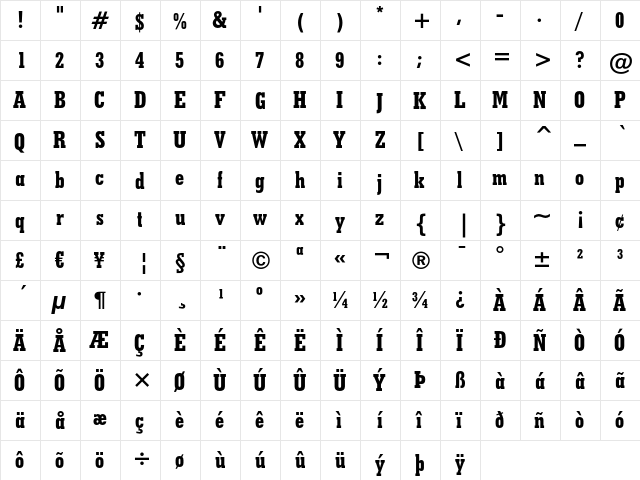
Geometric Slabserif 703 Extra Bold Condensed Font Preview
Design Context for Geometric Slabserif 703 Typeface
Geometric Slabserif 703 features prominent, blocky serifs that give it a confident, grounded presence — equally at home in editorial settings and bold branding work. Its bold stroke weight gives it real presence on the page. Its narrow stance lets it pack a punch even in space-constrained designs.
Works well in editorial design, news publishing, impactful branding, and poster typography.
Pro Tip: Try Geometric Slabserif 703 set tight in headlines for a classic editorial feel. Its slab serifs create strong horizontal rhythm that anchors a page layout.